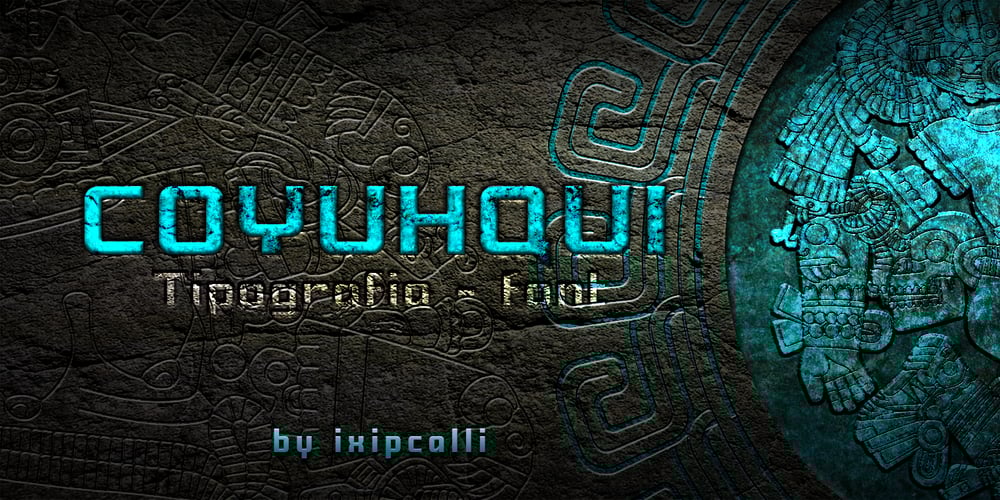
Coyuhqui Font Family was designed by Francisco Arellano and published by Ixipcalli. Coyuhqui contains 12 styles and family package options. Coyuhqui is a semi-geometric technical typeface, ideal for posters and flyers. It provides two weights: regular and medium. In addition to three styles: condensed, regular and extended; without leaving out the italic forms of each one. Thus, the Coyuhqui typeface family provides twelve typefaces. If you need a typeface for your project, this is the ideal one.